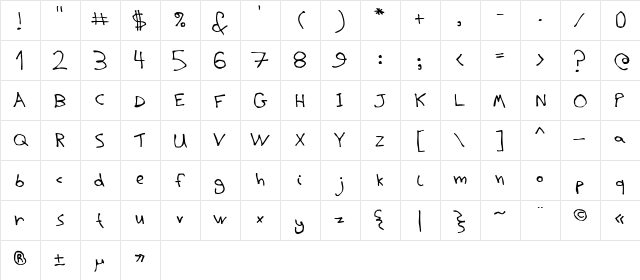
BPchildLefty Regular
| Foundry | George Triantafyllakos |
| Designer | George Triantafyllakos |
Design Context for BPchildLefty Typeface
BPchildLefty has an approachable, lighthearted character — its loose, expressive forms are well-suited to children's content, casual branding, and fun-first design.
Font Pairing: Pairs well with a rounded or humanist sans for body copy, maintaining the friendly tone without relying on BPchildLefty to carry extended reading.
Pro Tip: Avoid using BPchildLefty for long passages of text — it works best for headlines, labels, and short calls to action.